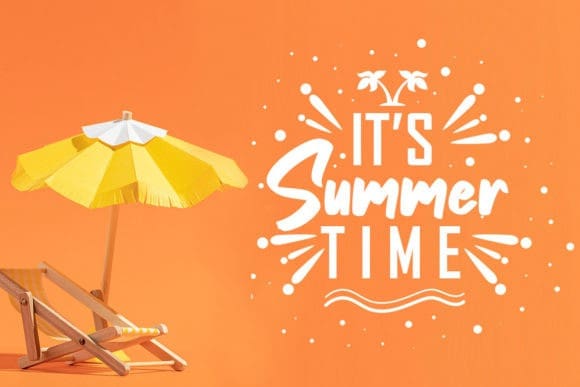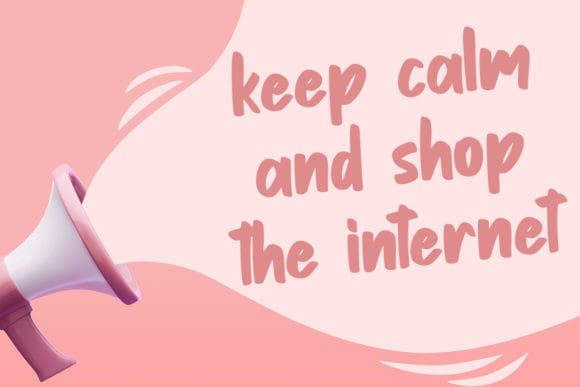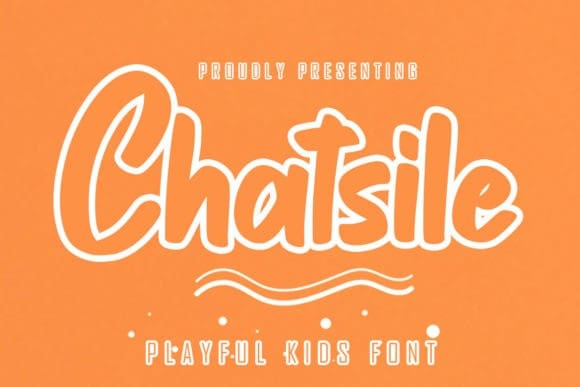
Chatsile Playful Font
Chatsile Playful Font is a cool, retro and urban styled display font. This font is suitable for designs such as t-shirts, sportswear, logos, advertisements, clothing, and more.